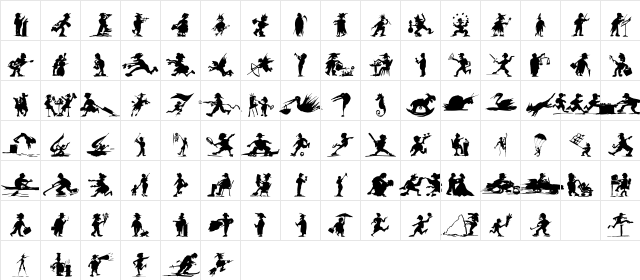
DF Shadowettes ITC Regular
| Foundry | International Typeface Corporation |
| Designer | Taouffik Semmad |
Design Context for DF Shadowettes ITC Typeface
DF Shadowettes ITC brings ornamental detail and strong personality to headlines and identities, where visual impact matters more than quiet functionality.
Font Pairing: Pair with a clean neutral sans-serif for body copy to let DF Shadowettes ITC's character lead without overwhelming the composition.
Pro Tip: Treat DF Shadowettes ITC as the centrepiece of your typographic hierarchy. One strong heading set in a decorative face can carry an entire layout.